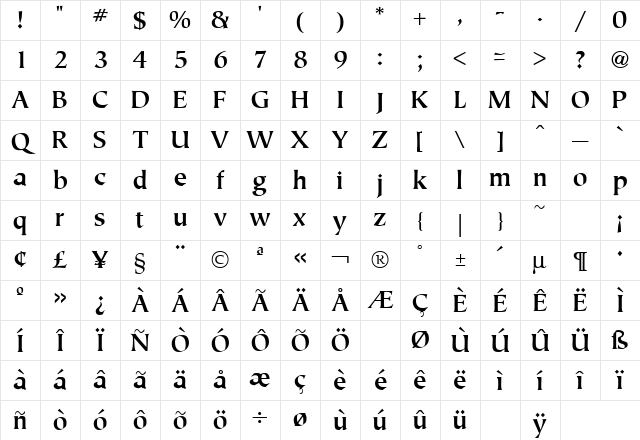
Tiepolo Bold Free Font
Tiepolo Bold
Design Context for Tiepolo
Tiepolo is a composed and adaptable typeface that performs quietly and consistently across a wide range of design contexts. Its bold stroke weight gives it real presence on the page.
Pro Tip: Use Tiepolo in both headline and body roles to test its range before committing to a single application.